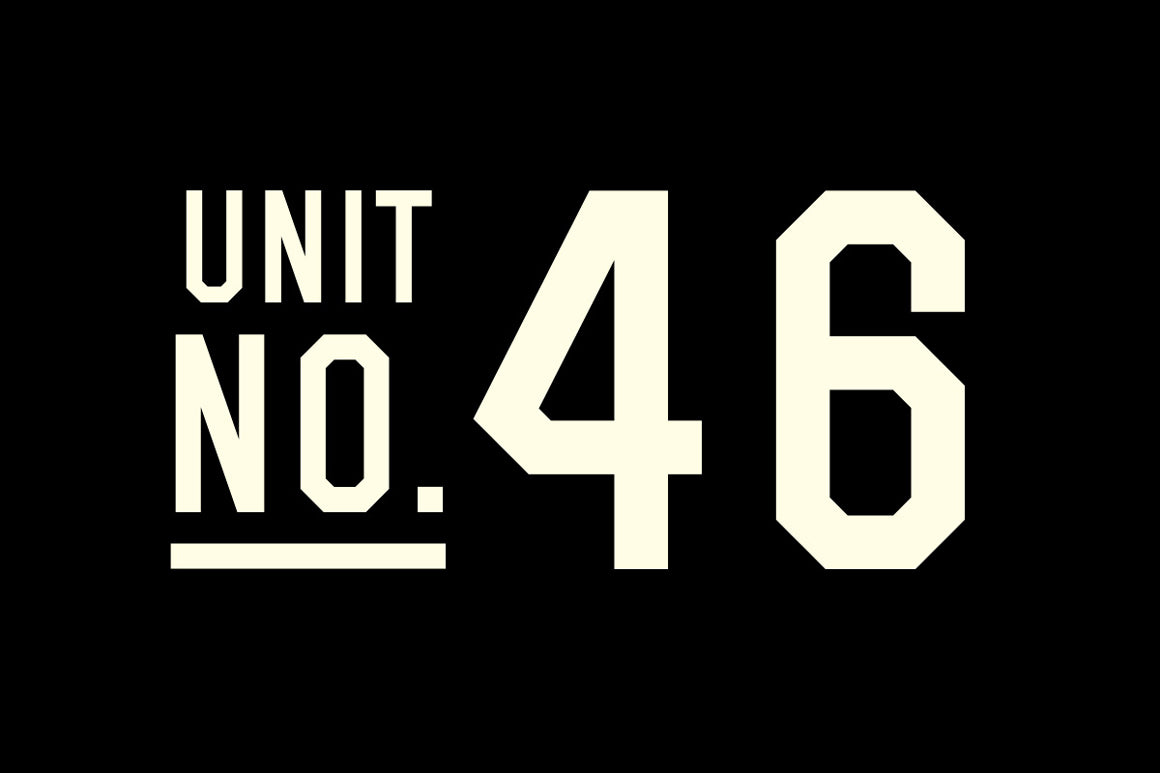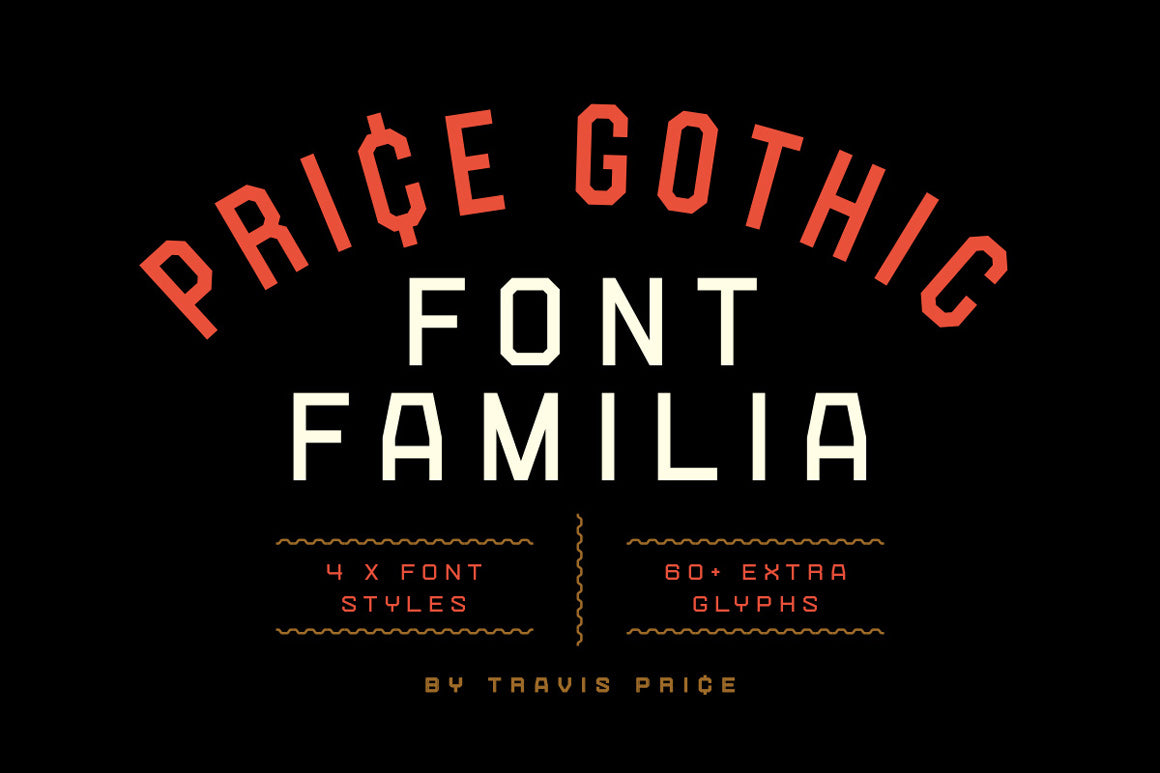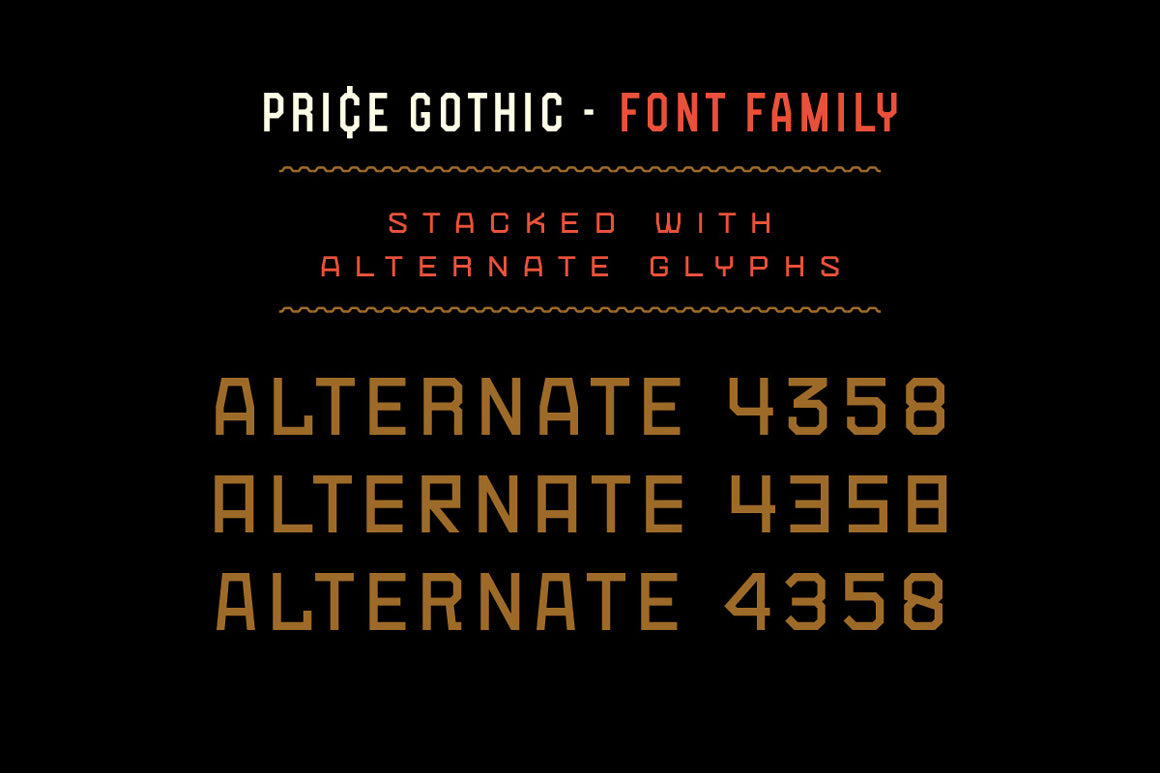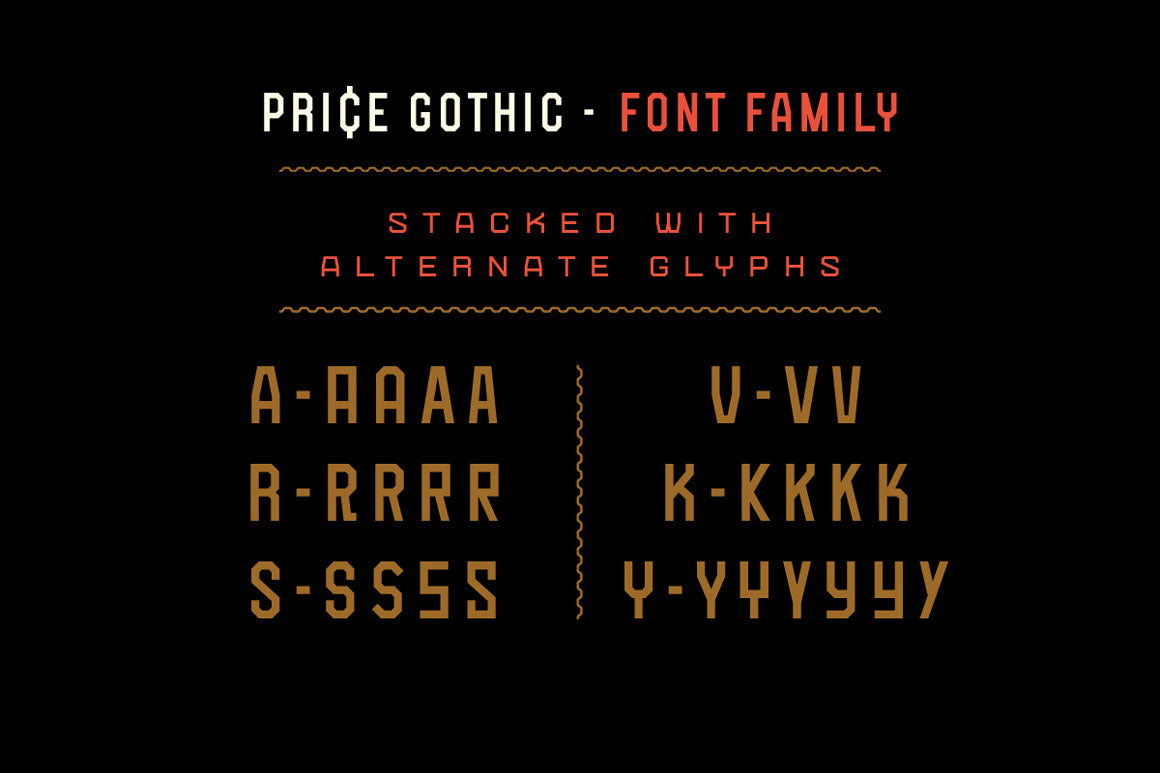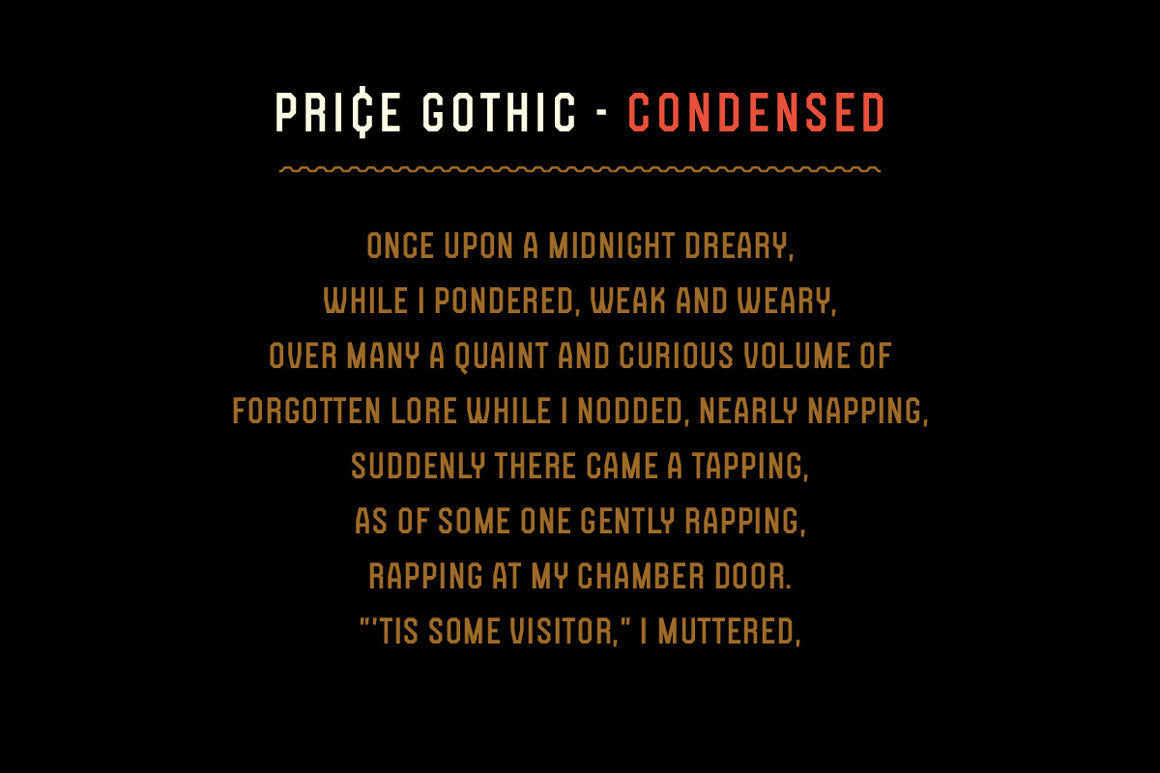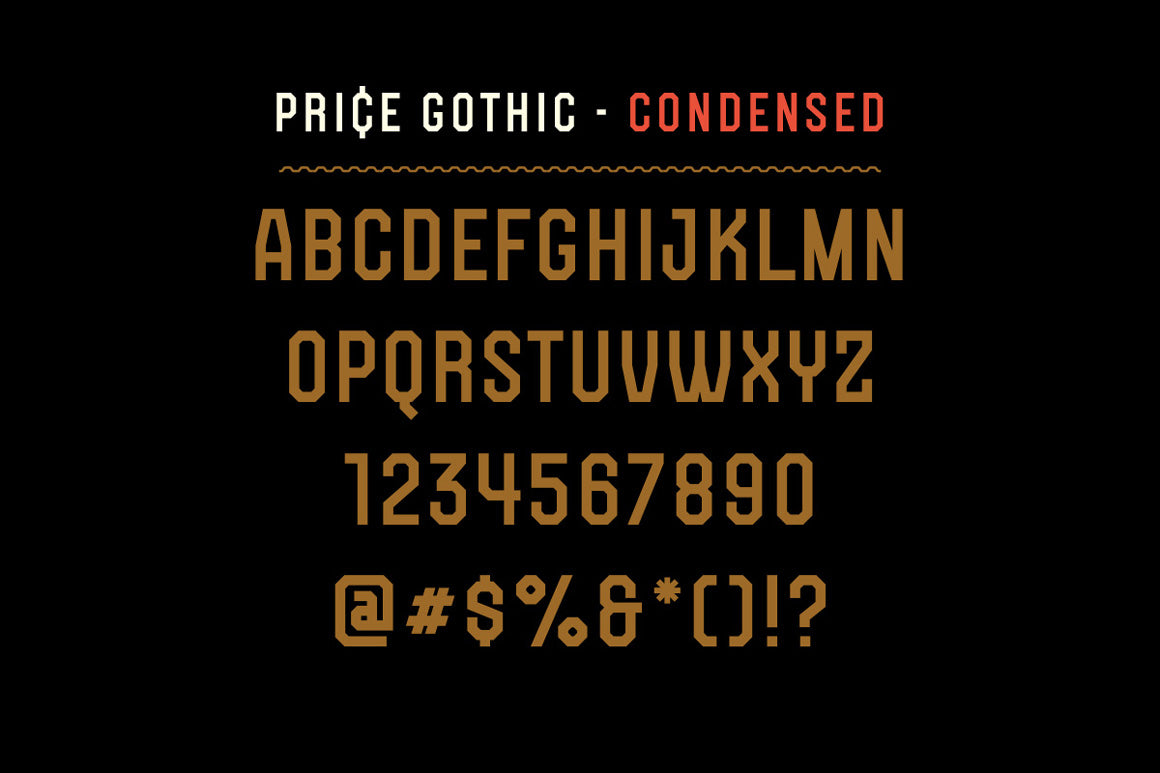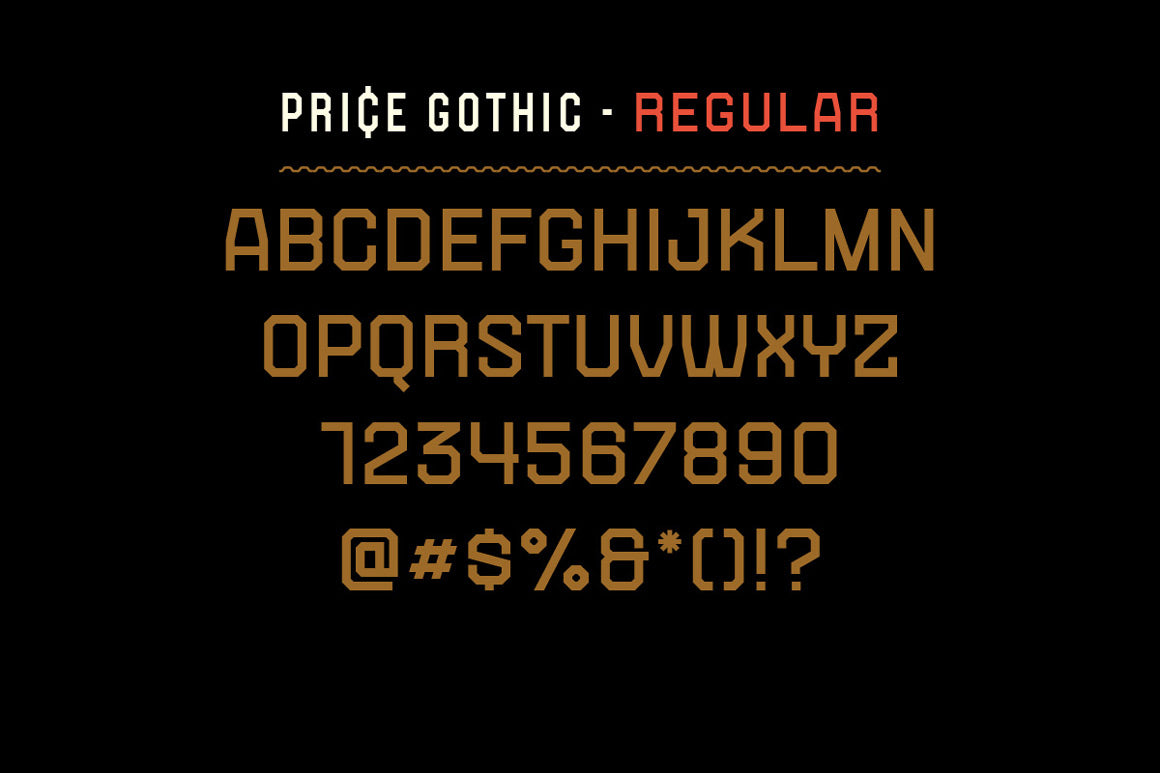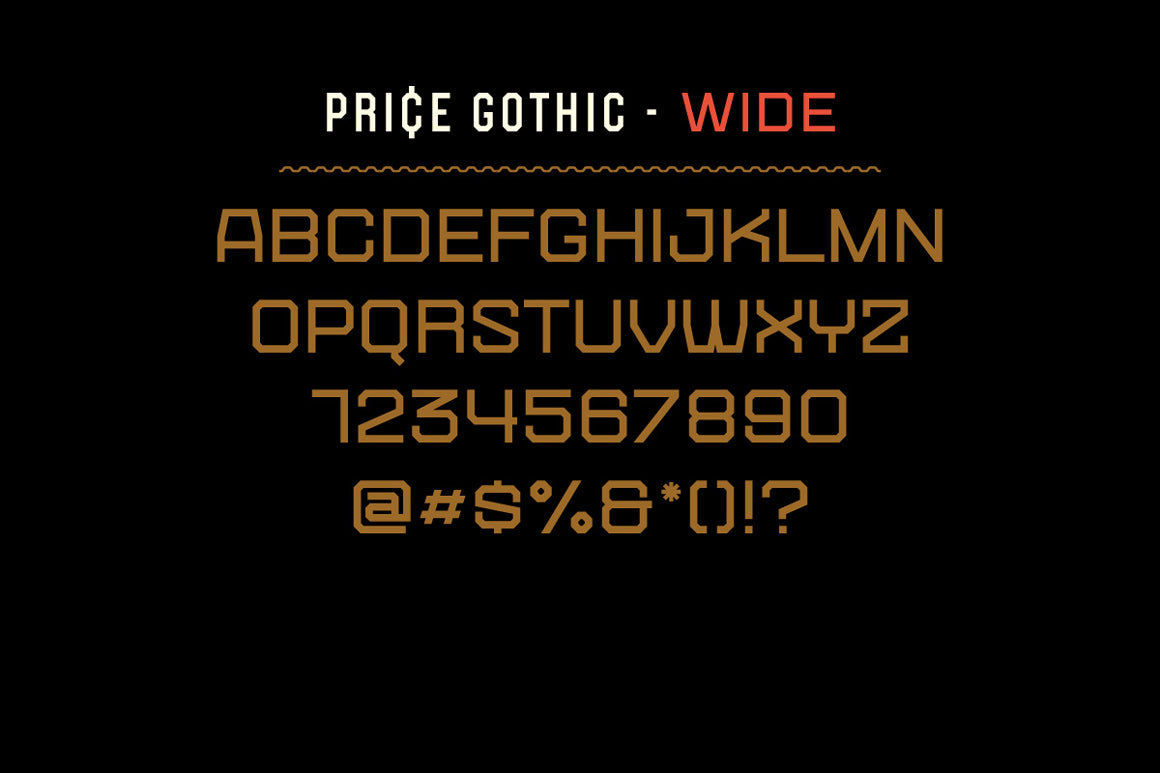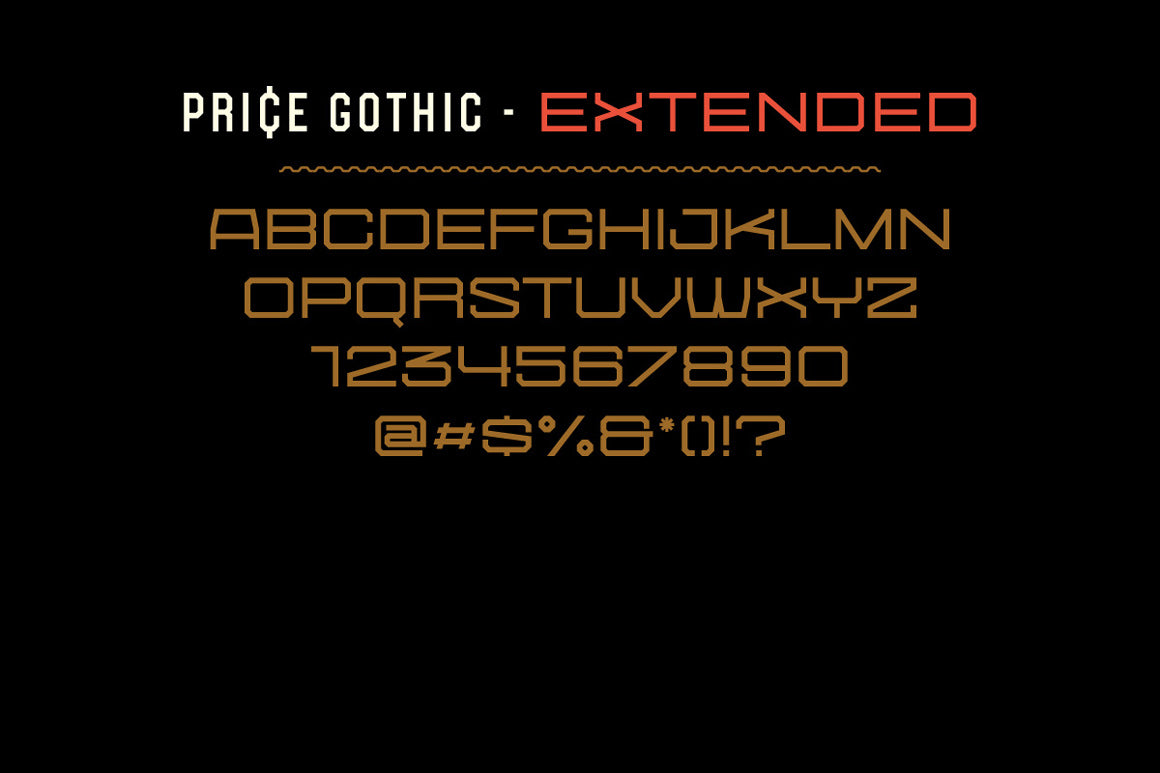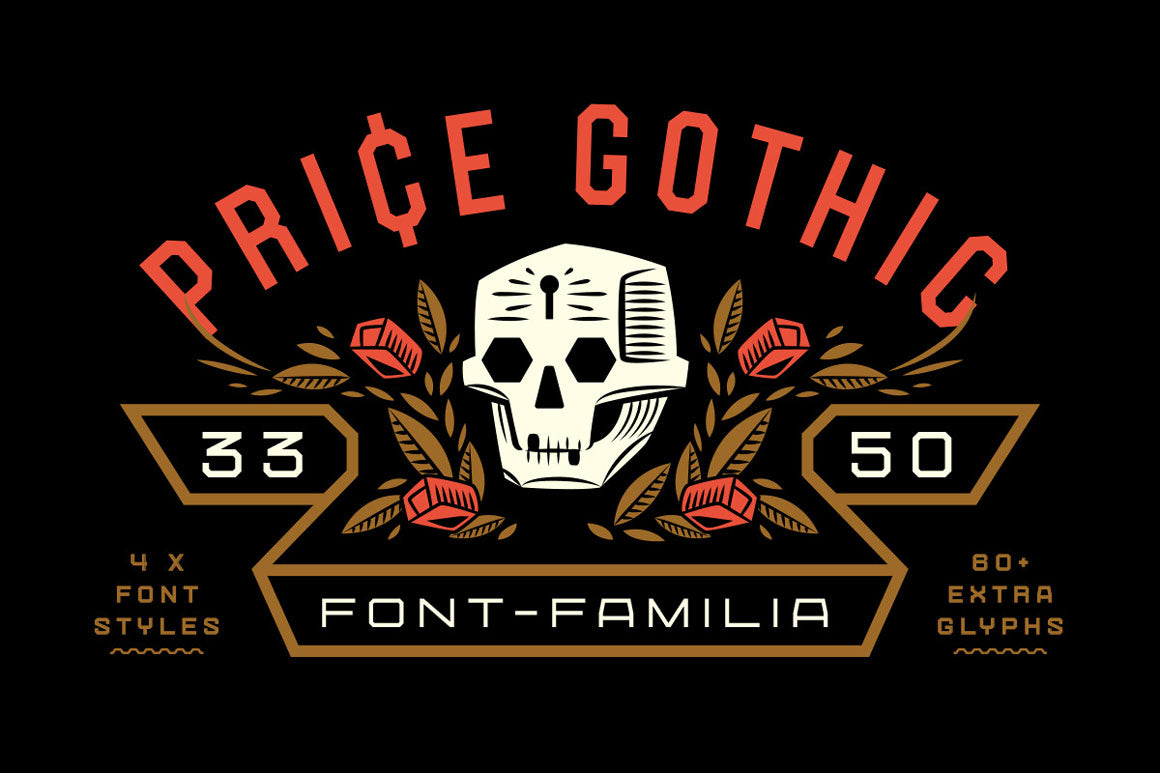
A cross between athletic block and military industrial, Price Gothic was created as a utility font for logo, branding and apparel design. With over 60+ alternate glyphs, it’s easy to change its aesthetic for any application.